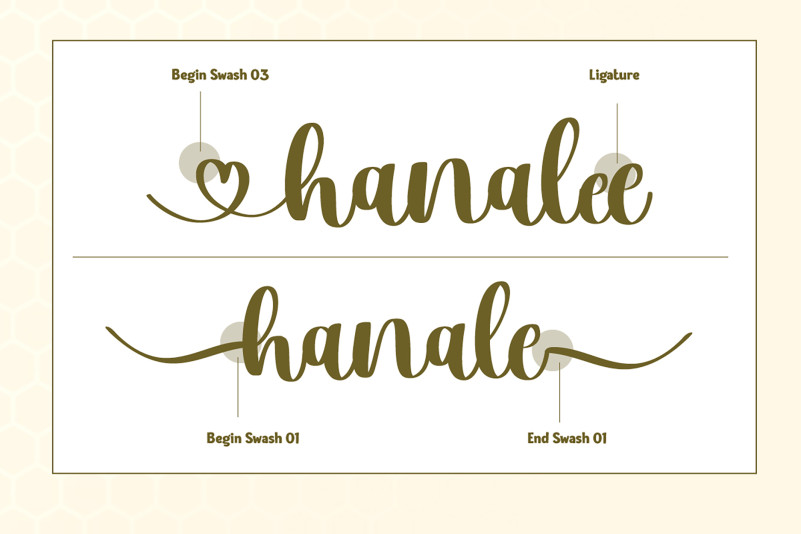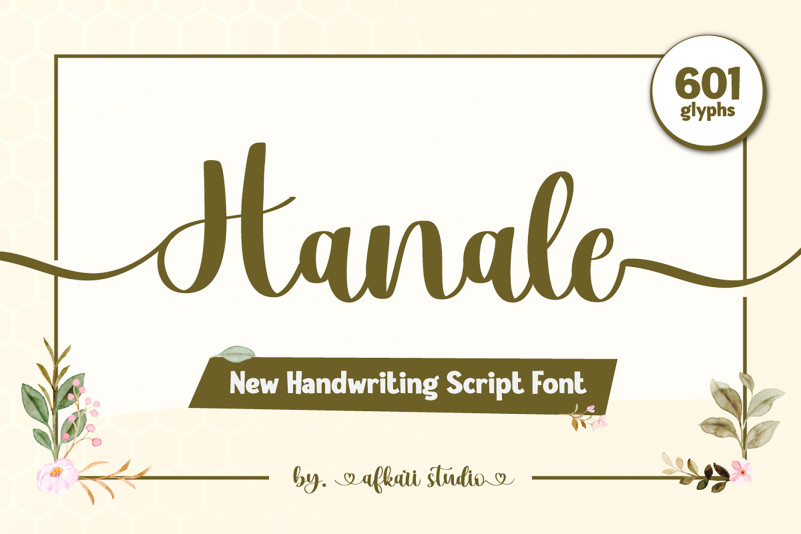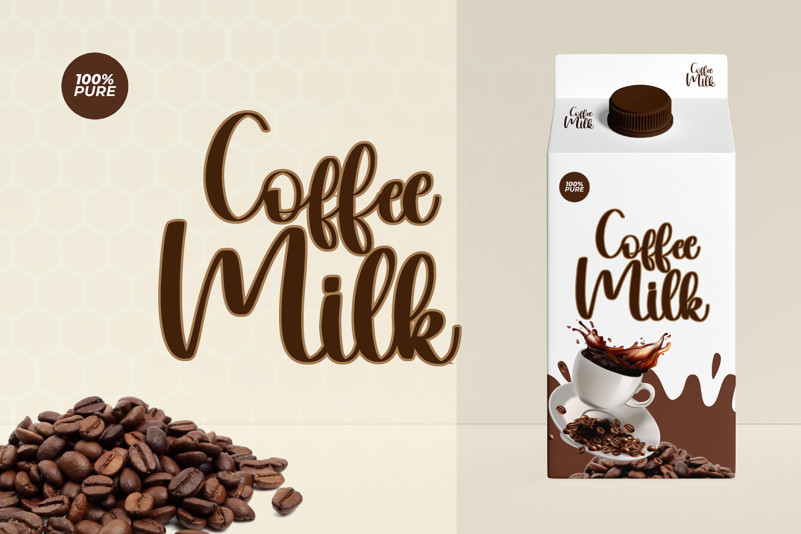
Hanale Font
Hanale Handwritten Script Font is a Signature Handwriting Font script that makes with natural line handwriting. This font is suitable for any branding of your design needs, wedding invitation, romantic project, studio brand, logo, invitations, social media posts, clothing, invitation, poster, cafe/resto sign and others.